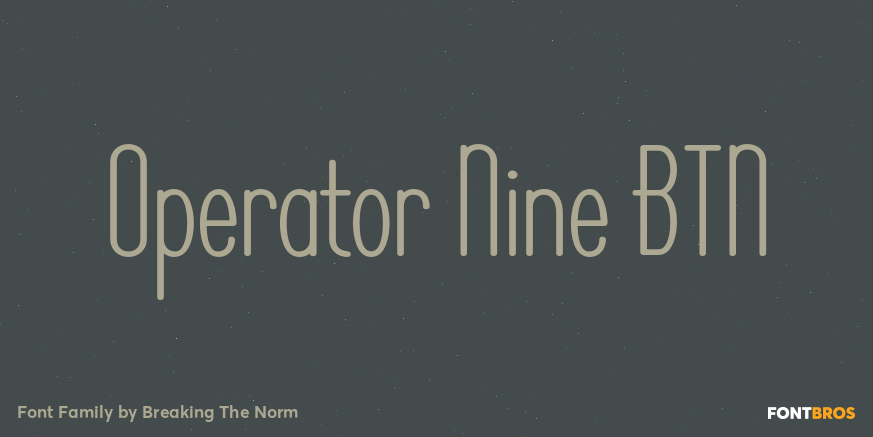
Operator Nine BTN
About Operator Nine BTN
Operator Nine is a clean, deco, text typestyle with a range of appeals available through its many variants of weights, obliques, and other features such as inline, lined, and shadow. Perfect for small bodies of text, and strongly appealing for logo and…